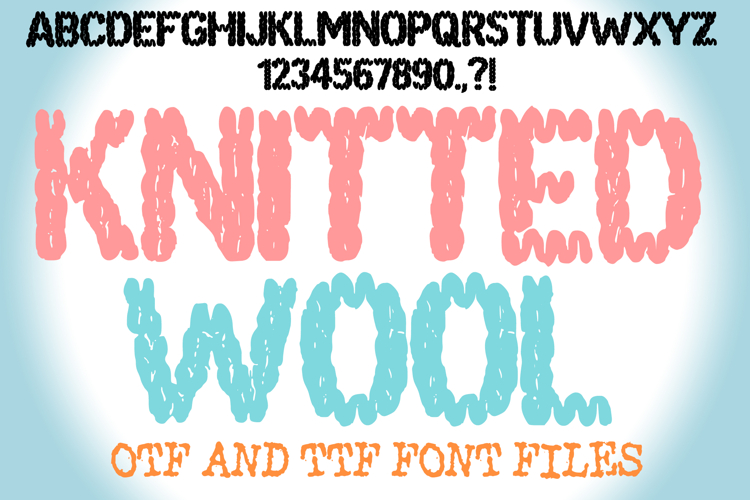
Knitted Wool Alphabet Lettering ABC Text Embroidery Font OTF
A unique sewing style font where you can create your own words and colour them to your vision!